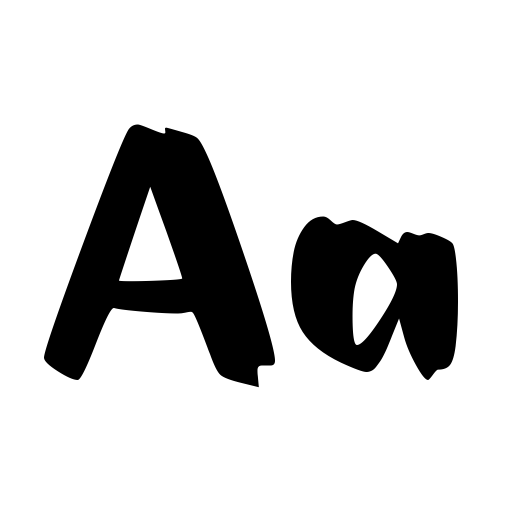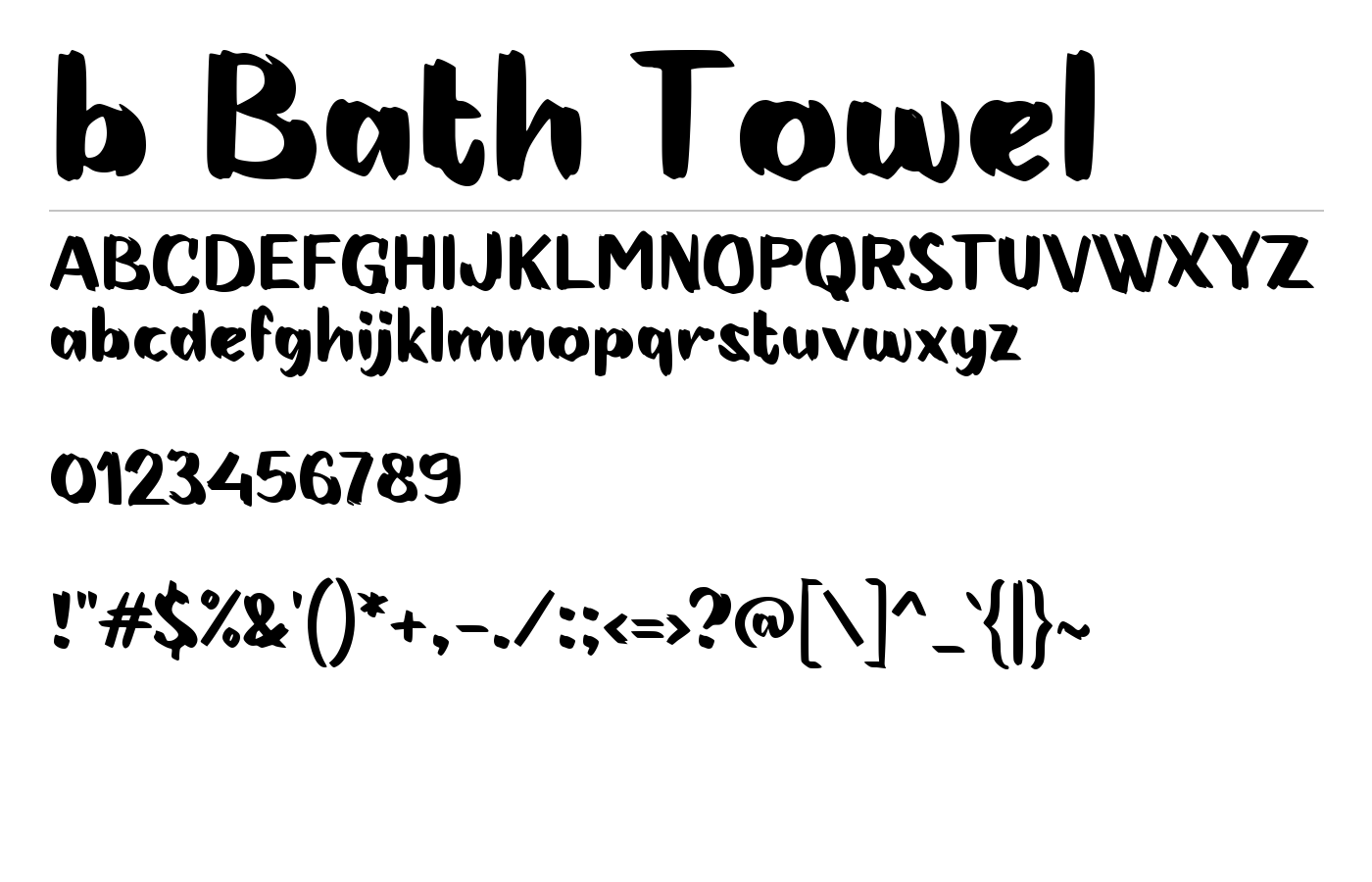
b Bath Towel is a playful, casual handwritten font with a chunky, irregular style that mimics the texture of a thick towel. It features moderately condensed letterforms with uneven edges and a friendly, approachable vibe, making it perfect for informal branding, children’s projects, or fun posters. This font works well where a warm, handmade touch is desired, adding personality and charm to creative and lighthearted designs.
b Bath Towel Font
About b Bath Towel Font